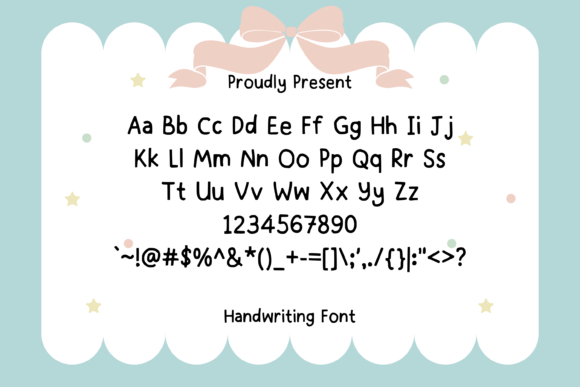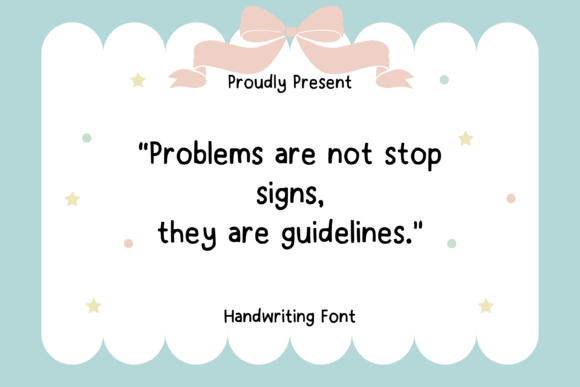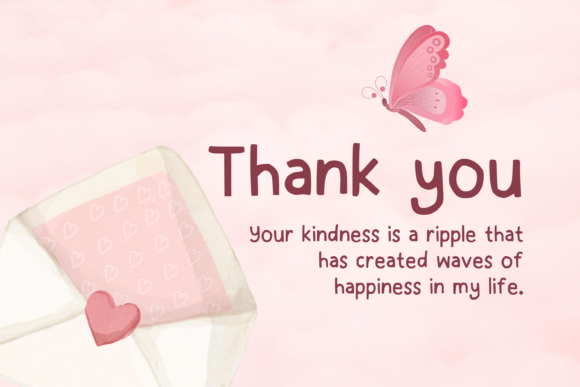
Unleash Your Creativity with the Blue Serenity Font
Have you ever found yourself scribbling notes in the dead of night, pouring your heart onto the page in a messy yet beautiful handwriting? That’s the magic of writing, and for many of us, it’s a moment of pure serenity. For those who crave this feeling in their digital creations, we have just the thing – the Blue Serenity Font.
This simple yet endearing regular handwriting font is perfect for jotting down notes, recording your thoughts in a diary, or even creating invitations that exude warmth and personality. As a designer, you’ll appreciate the versatility of the Blue Serenity Font, which can be used to add a touch of whimsy to your projects without overpowering the message.
Blue Serenity Font Key Features
- Font Family: Blue Serenity is a high-quality, modern script font.
- Unique Characteristics: Features a unique blend of elegance and sophistication, with subtle flair and movement that adds a touch of personality to any text.
Blue Serenity Font Review
I’ve had the chance to work with the Blue Serenity font, and overall, I’m quite impressed with its aesthetic. ✨ The flowing curves and gentle lines give it a calming, serene feel, perfect for designs that aim to evoke a sense of tranquility. It’s also highly legible, making it suitable for a wide range of applications.
One of the standout features of Blue Serenity is its versatility. ✨ It works well in both digital and print formats, and can be used in various contexts, from logos to body text. Additionally, it comes in a range of weights and styles, allowing designers to tailor the font to their specific needs.
However, there are some limitations to consider. ⚠️ The font’s delicate nature can make it prone to distortion when scaled up or down, which may require additional adjustments to maintain its integrity. Additionally, the font’s unique design may not be suitable for all types of content, such as highly technical or dense text.
Design Considerations
- Best used for designs that require a calm, soothing atmosphere.
- May require additional adjustments when scaling the font.
- Not ideal for highly technical or dense text.
Overall, I think Blue Serenity is a solid addition to any designer’s toolkit. While it may not be the most versatile font, its unique charm and high legibility make it a great choice for the right projects.
The Blue Serenity Font is ideal for creating a calming and peaceful atmosphere in designs. Use it for:
- Wellness and self-care branding
- Yoga and meditation marketing materials
For best results, pair the Blue Serenity Font with calming colors and simple designs.